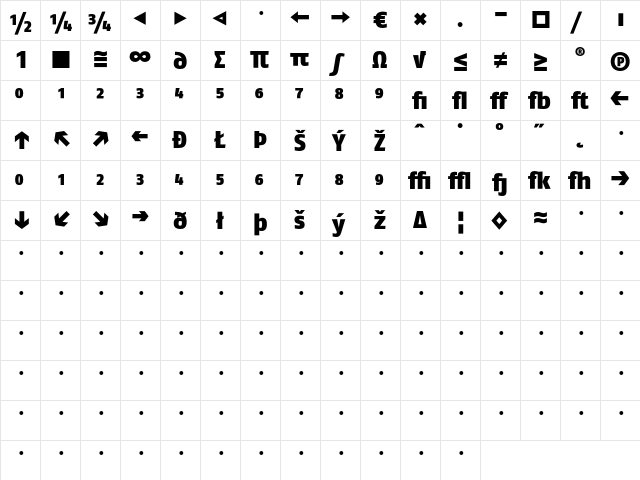
FagoNo BlackExpert
Design Context for FagoNo Typeface
FagoNo takes a measured approach to typography — its balanced proportions and neutral character make it a reliable workhorse for both digital and print work.
Pro Tip: Pair FagoNo with a font of contrasting weight or personality to build a more expressive typographic hierarchy.